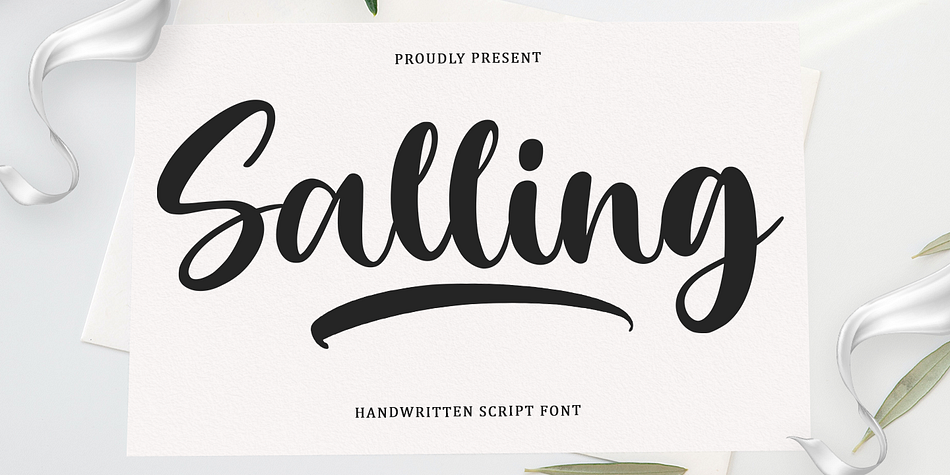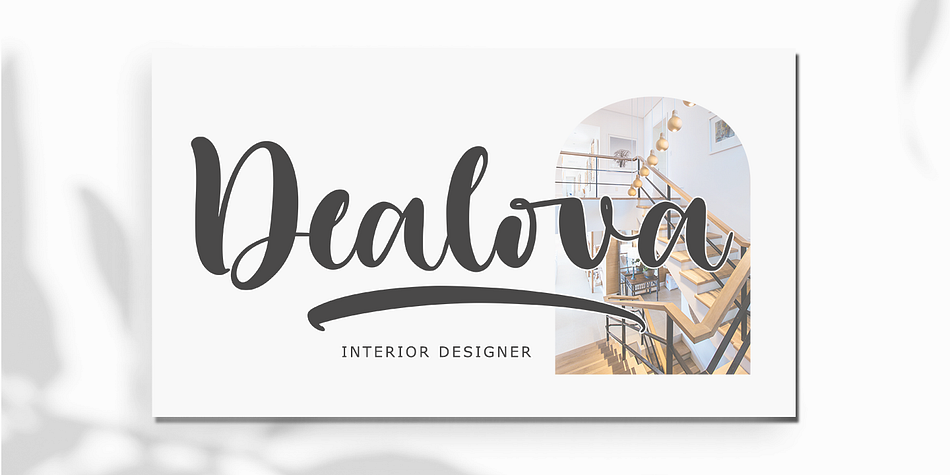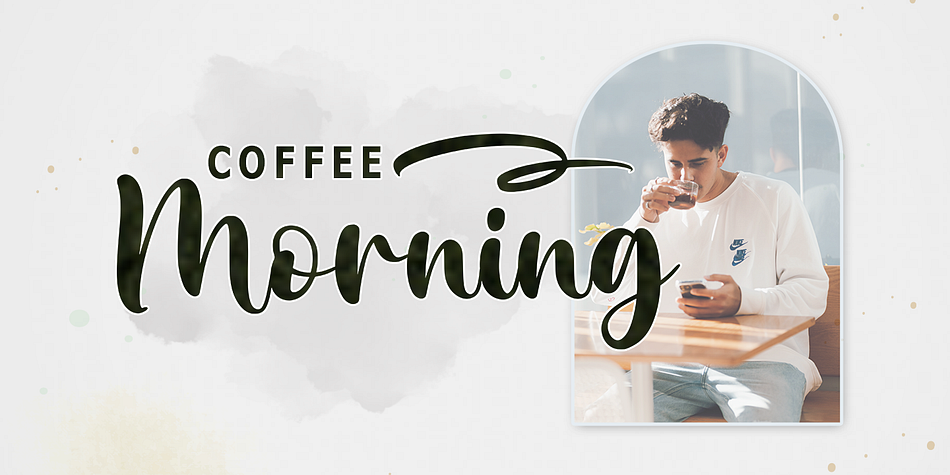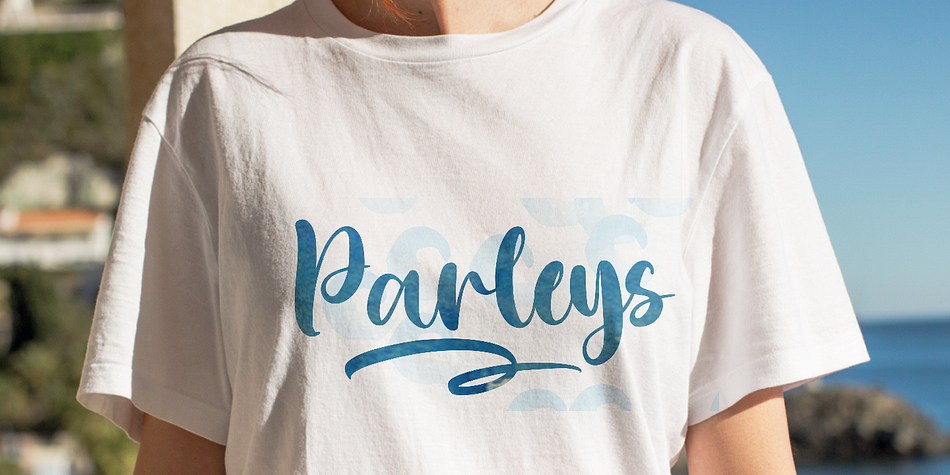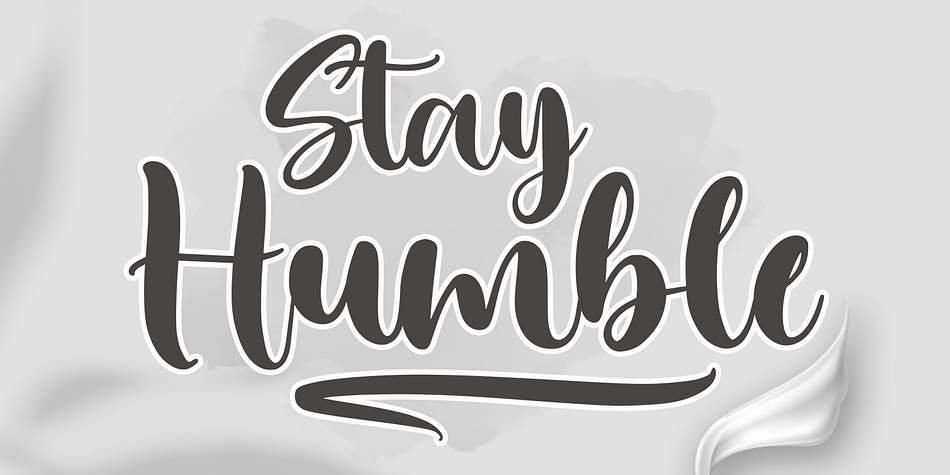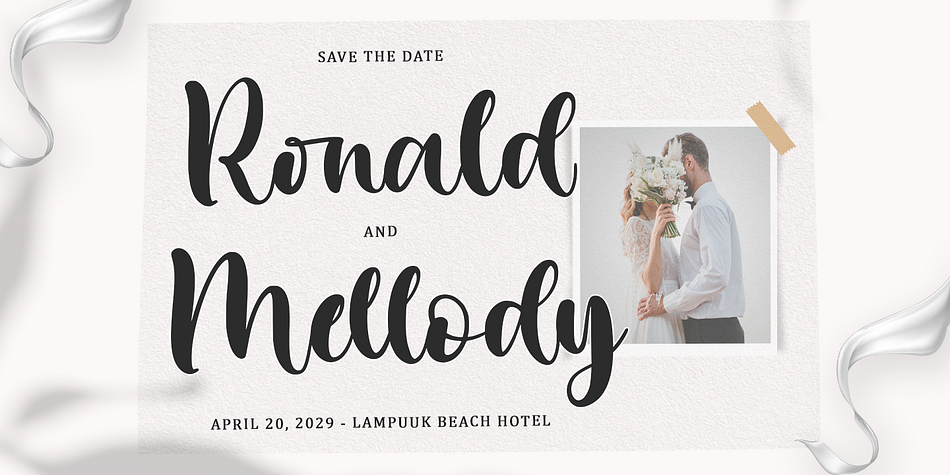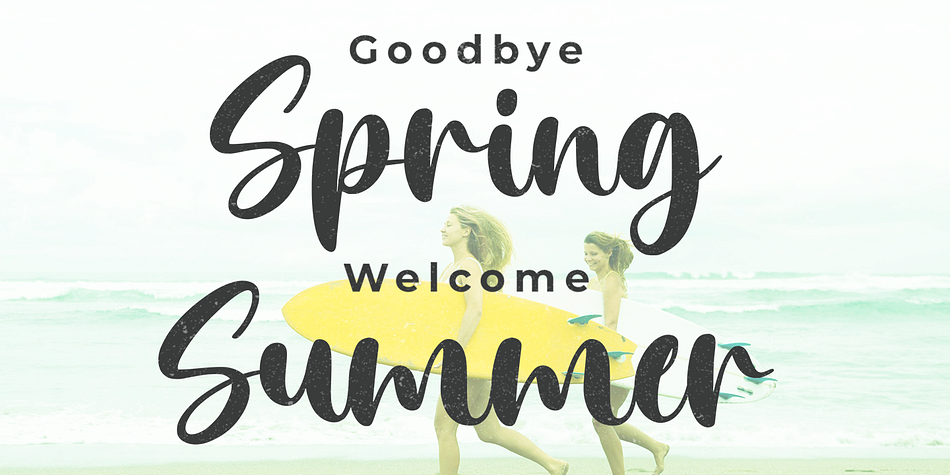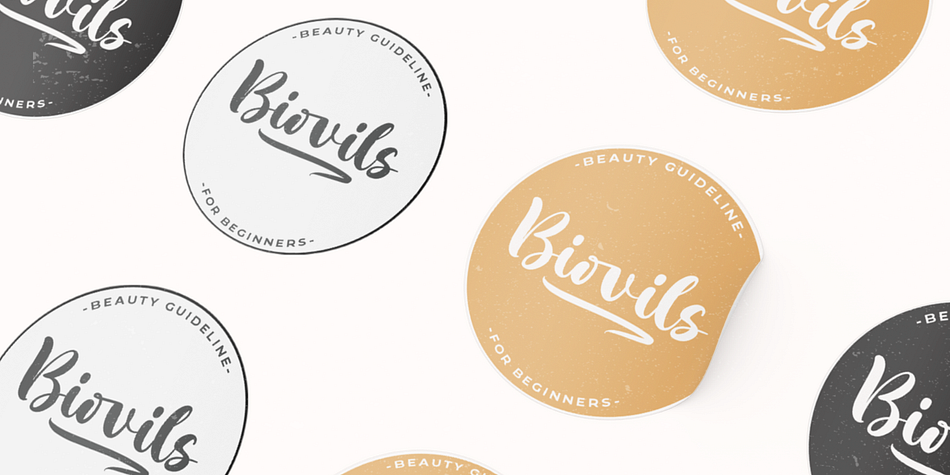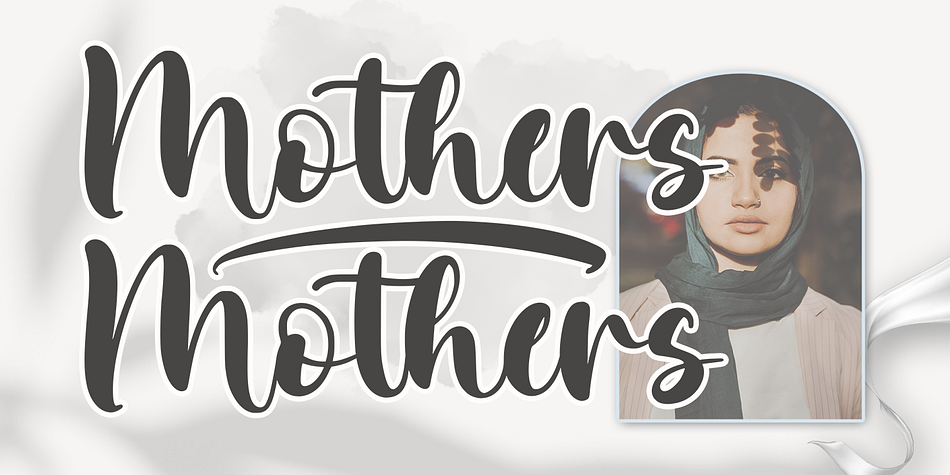
Salling
Salling is a script and dingbat font family. This typeface has two styles and was published by Rastype Studio.
Salling Script is handwritten font with a modern calligraphy feel.
Salling Script is perfect for modern projects, headings, blogs, logos, brandings, invitations and more!